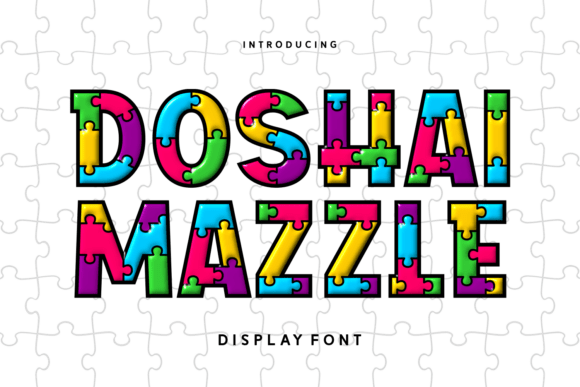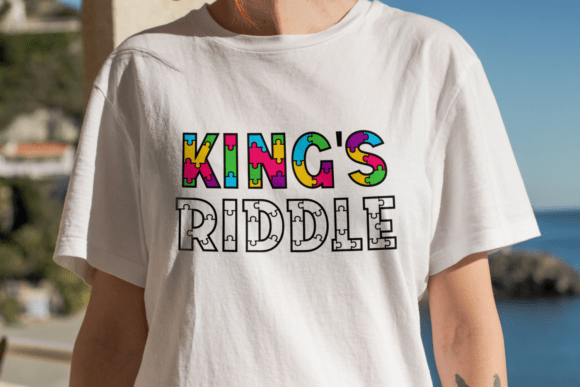
Doshai Mazzle Font
Unveiling “Doshai Mazzle Font,” a whimsical yet distinctive typeface that reverberates with the zest of puzzle-piece inspired illustrations. Its charm lies in its innovative design, showcasing letters formed from interlinked, vibrant puzzle segments, emitting a three-dimensional and toy-like aesthetic that excites the inner child in everyone. Straying from the norms of solid fonts, “Doshai Mazzle” thrives on its segmented architecture, crafting an intriguing narrative of assembling together piece by piece. Equipped with a full uppercase and lowercase set, numerals, and a wide range of punctuation and symbols, topped with multilingual support, its flexibility spans across diverse content genres and multiple languages. Ideal for reaching a young audience, creating vibrant educational material, or adding a dash of fun and creativity to any project, “Doshai Mazzle” fits seamlessly into children’s books, educational games and apps, event invitations, toy packaging, or any playfully interactive product branding. “Doshai Mazzle Font” sets the scene with its radiant puzzle-piece architecture and stimulating visual composition, sure to spark curiosity and playful vibes. With its unique design language, any text adorned by this font will make a striking impact and leave a lingering impression.